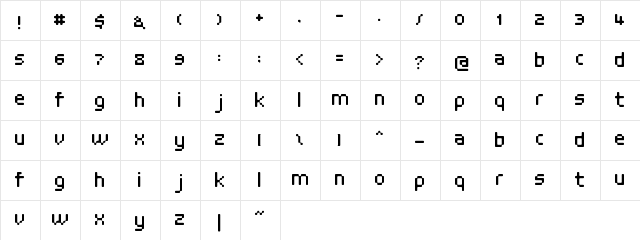
Wim Crouwel 68 Cloned Regular
Design Context for Wim Crouwel 68 Cloned Typeface
Wim Crouwel 68 Cloned takes a measured approach to typography — its balanced proportions and neutral character make it a reliable workhorse for both digital and print work.